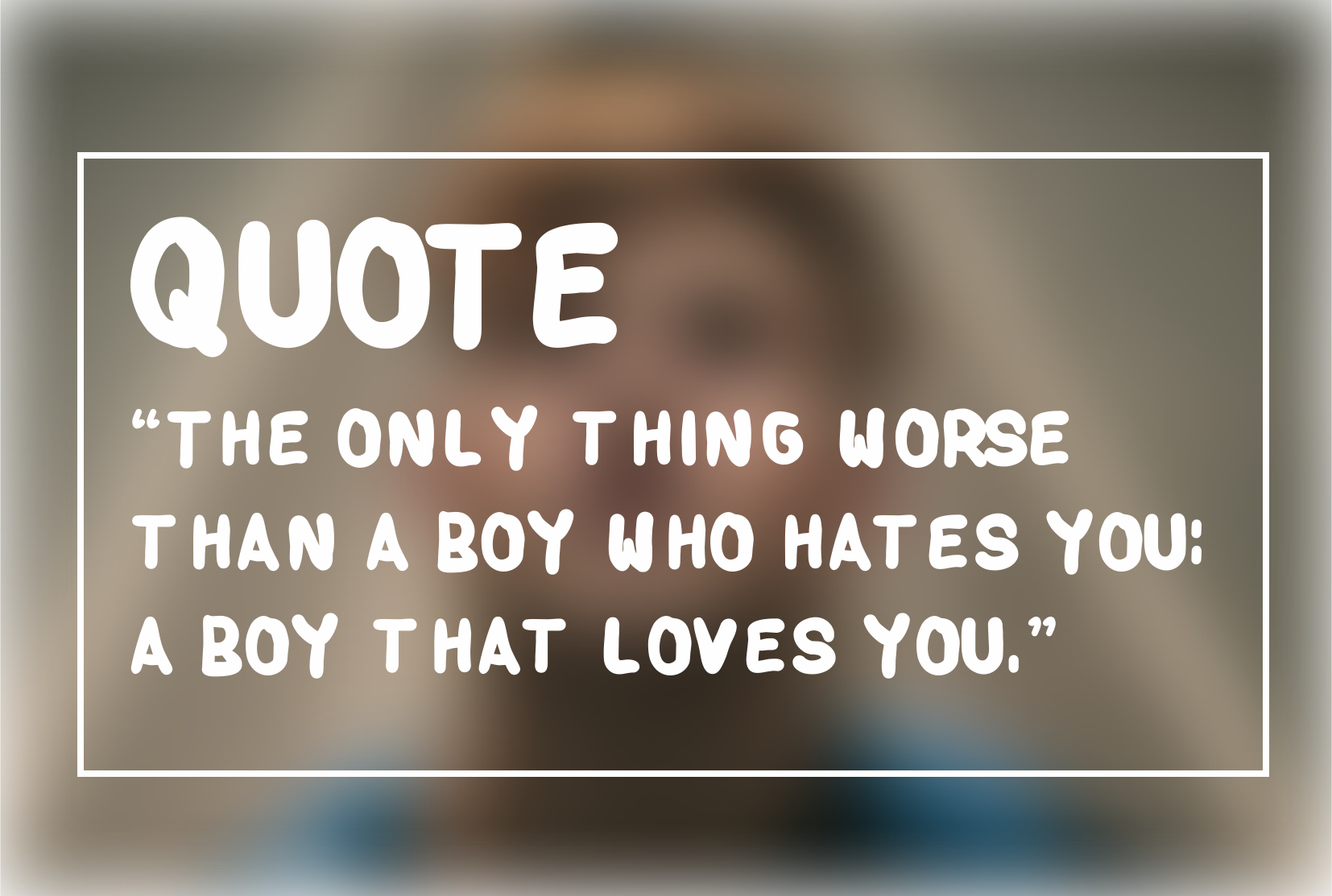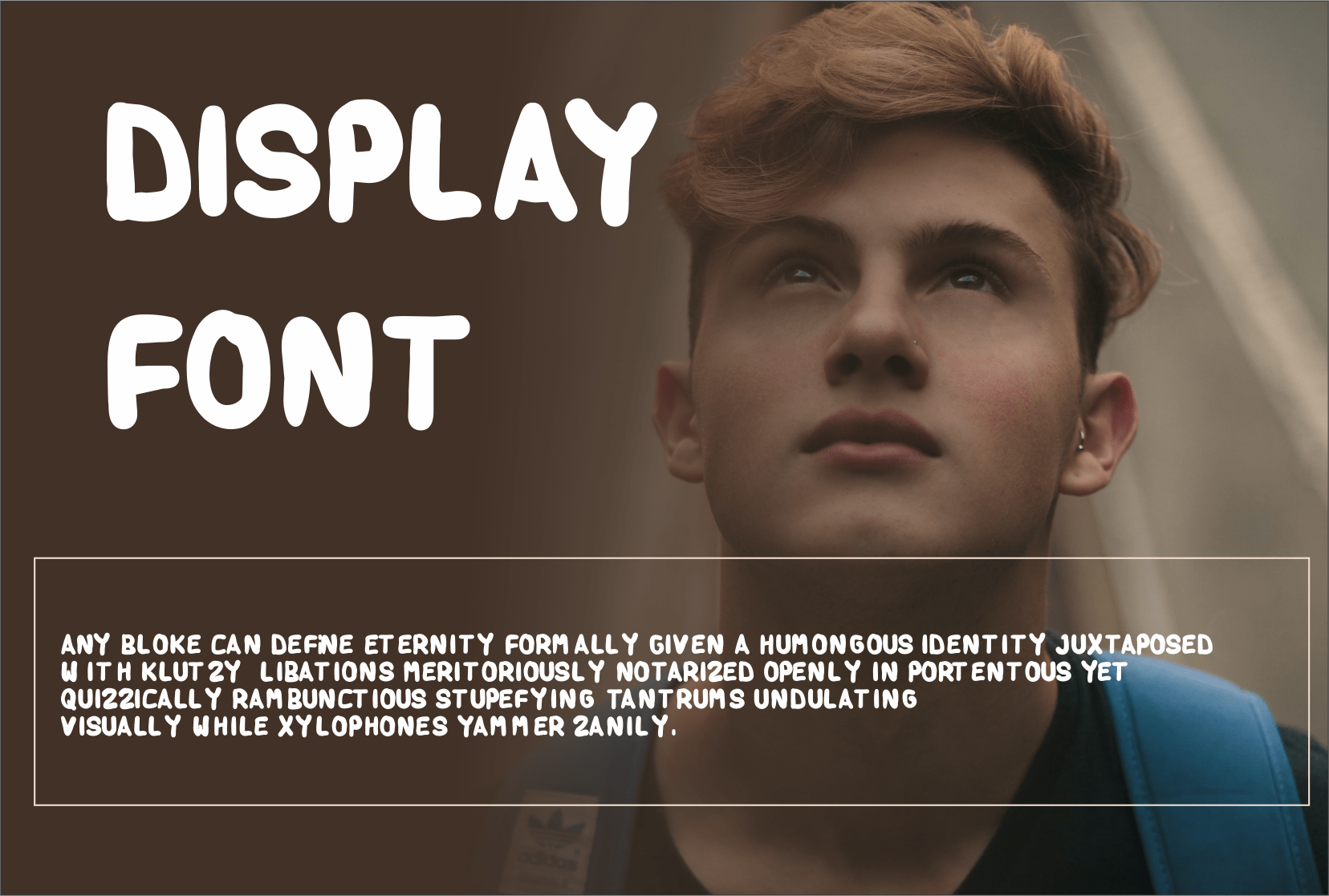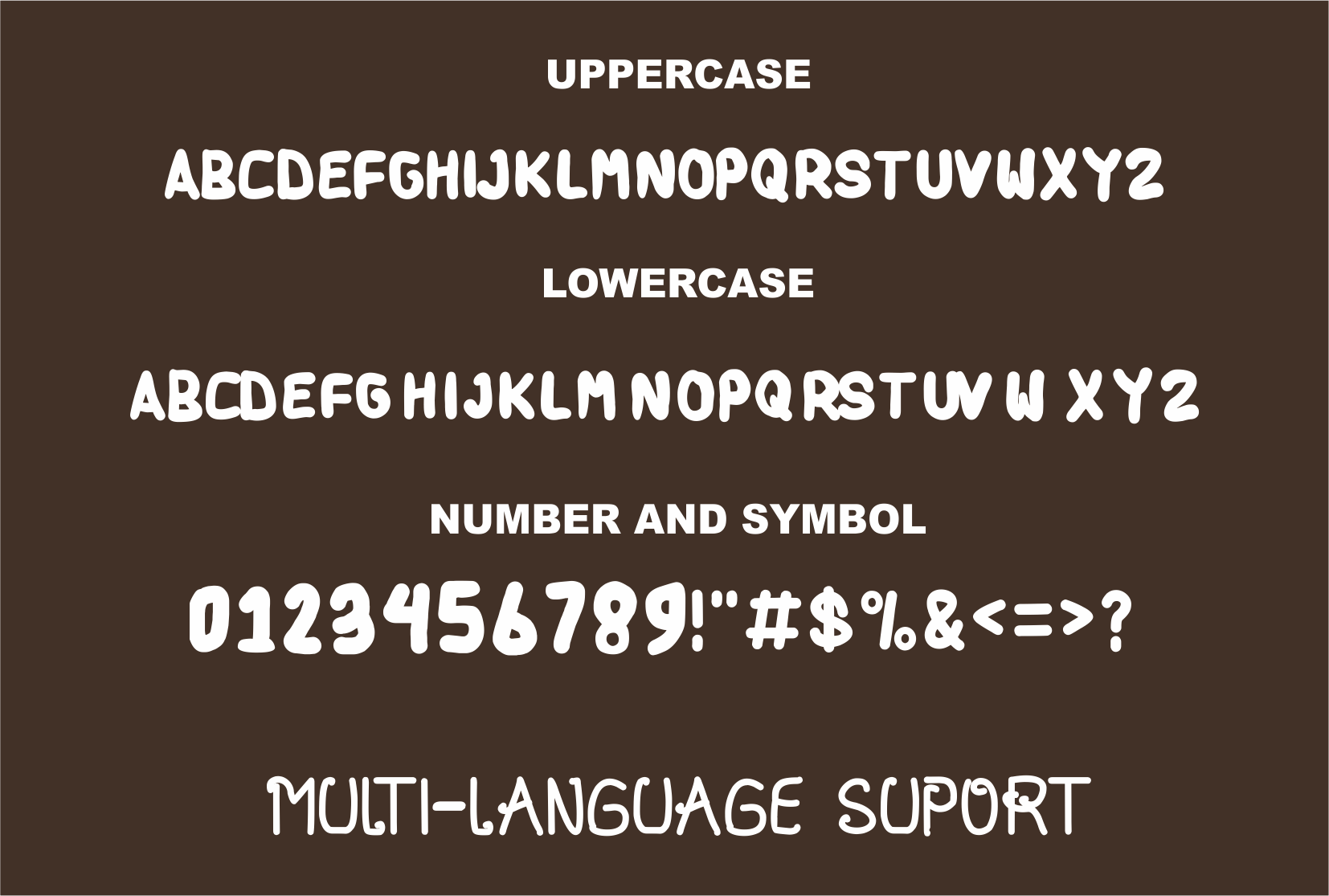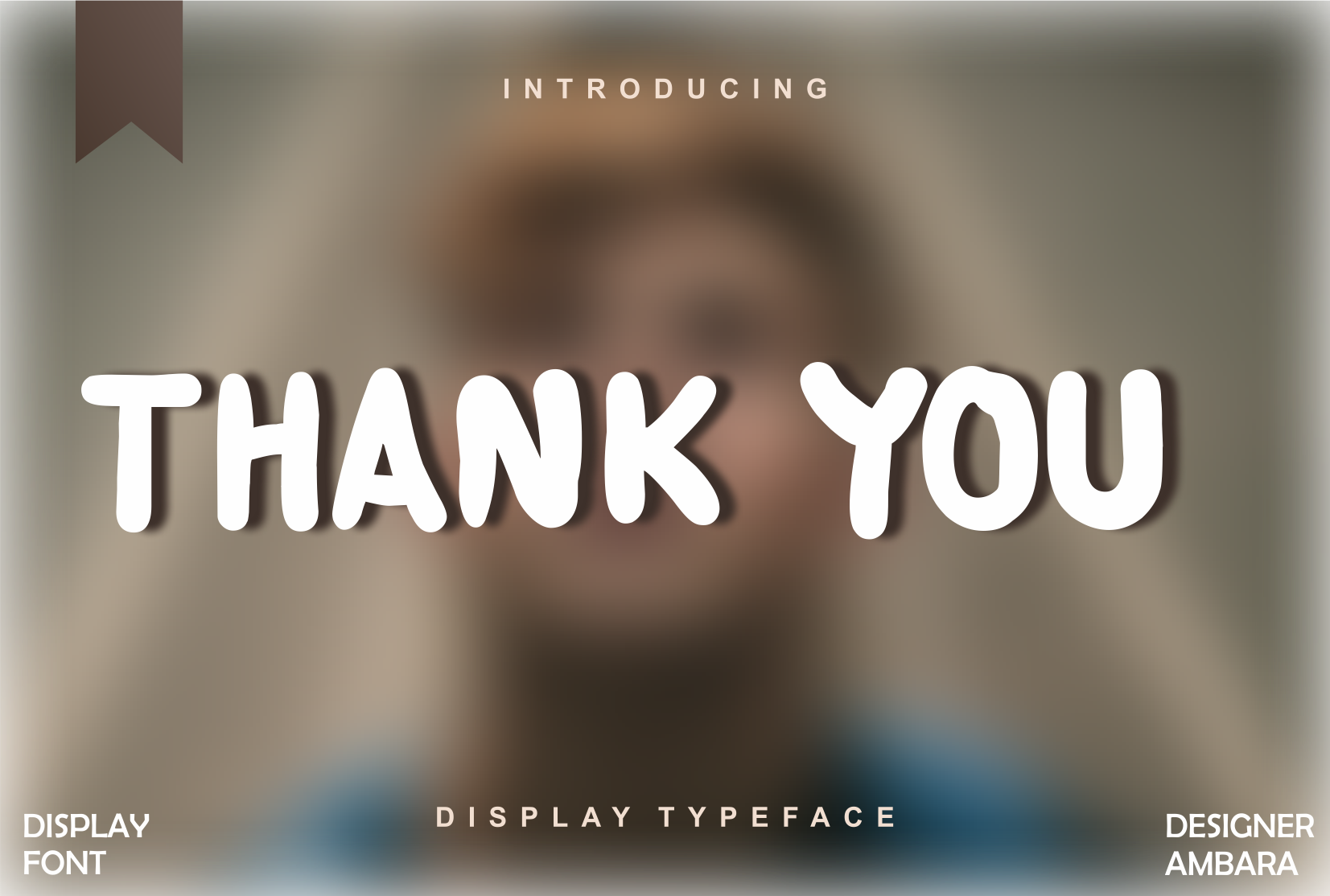
Home Boys Font
Home Boys Display Font
It’s a neat and modern display font with stylish characters and nicely rounded edges. It is a great choice for almost any creative project, as it can elevate the appearance of any item!LINK
This font was created by Ambara_studio.